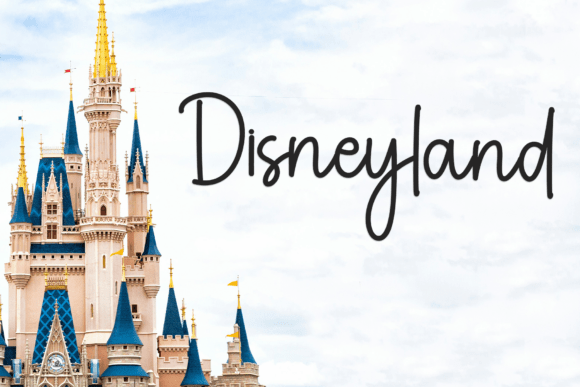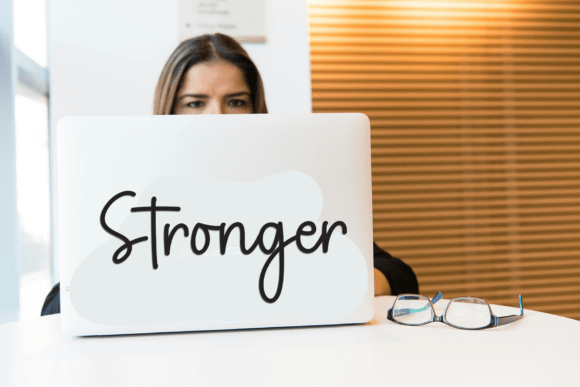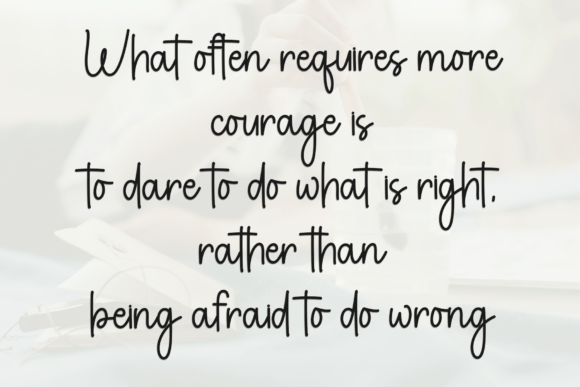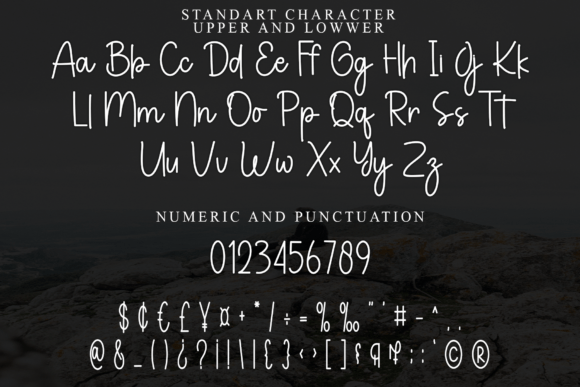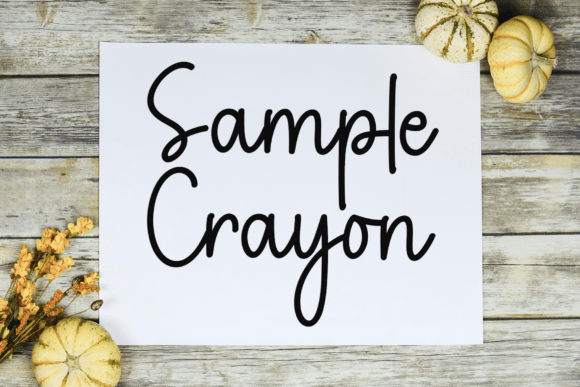
The Designer’s Delight: Capitalist Font
I’ll never forget the struggle I faced while working on a branding project for a new coffee shop. My client wanted a font that was both elegant and quirky, but I just couldn’t seem to find the right fit. That was until I stumbled upon the Capitalist font. Its unique, soft touch and distinctive strokes immediately caught my attention, and I knew I had found the perfect match. In this article, I’ll share my experience with the Capitalist font, its features, and how to make the most of it in your design projects.
• ✨ Unique and eye-catching design: The Capitalist font stands out from the crowd with its soft, yet distinctive strokes.
• ✅ Versatility: This font is perfect for a wide range of design projects, from crafts to creative works.
• 🌟 Natural and appealing: The font’s natural style makes it appealing to various audiences across different artistic and creative fields.
While the Capitalist font is amazing, there are a few things to keep in mind:
• 🤔 Limited use in formal designs: Due to its unique style, the Capitalist font might not be the best fit for formal or traditional designs.
• ⚠️ Pay attention to font size: The font’s distinctive strokes can become less legible at very small sizes.
The Designer Inspiration Behind Capitalist Font
The Capitalist font was designed with the intention of creating a unique, yet natural-looking font that would appeal to designers and creative hobbyists. The designer aimed to craft a font that would be both elegant and quirky, making it perfect for a wide range of design projects.
Font Name Capitalist Font
Author FreshTypeINK
Q: What type of designs is the Capitalist font best suited for?
A: The Capitalist font is perfect for creative projects, crafts, and other artistic designs. Its unique style makes it ideal for logos, branding, and titles.